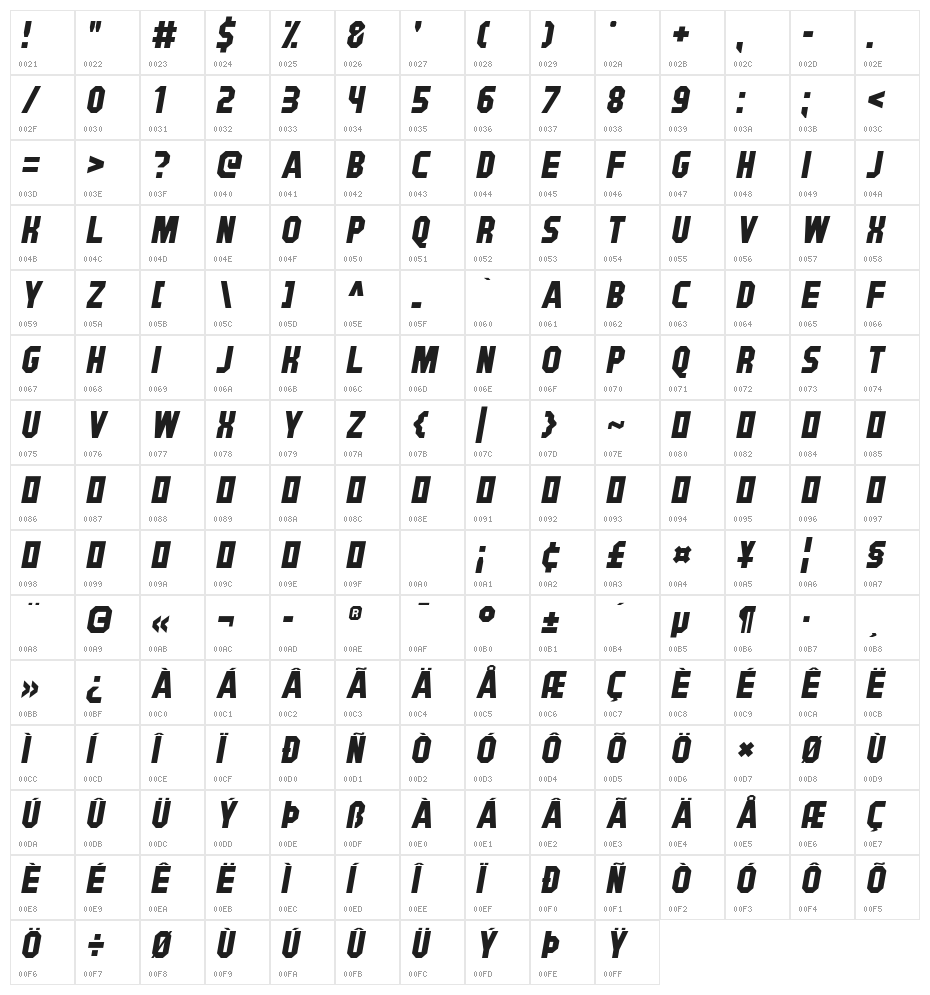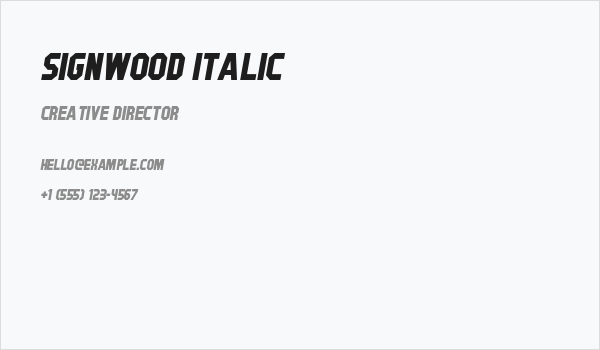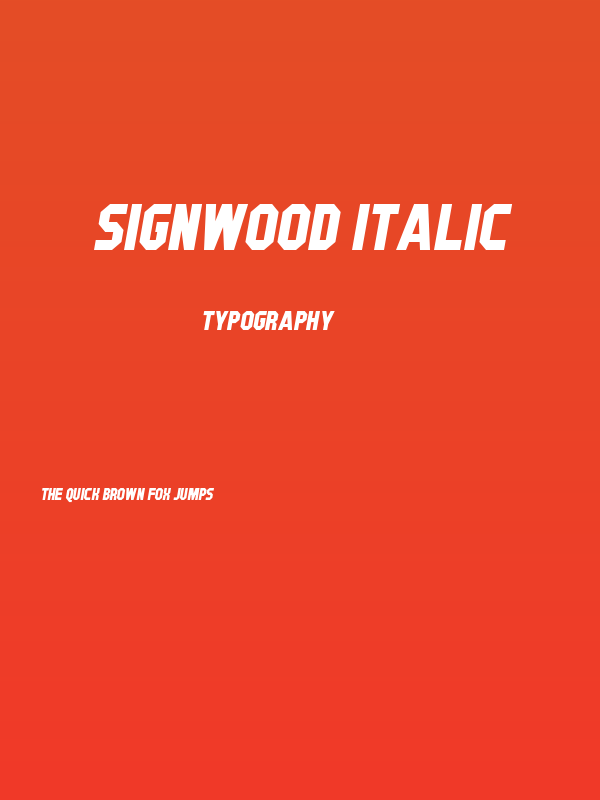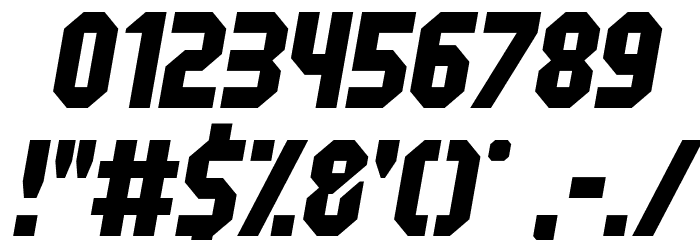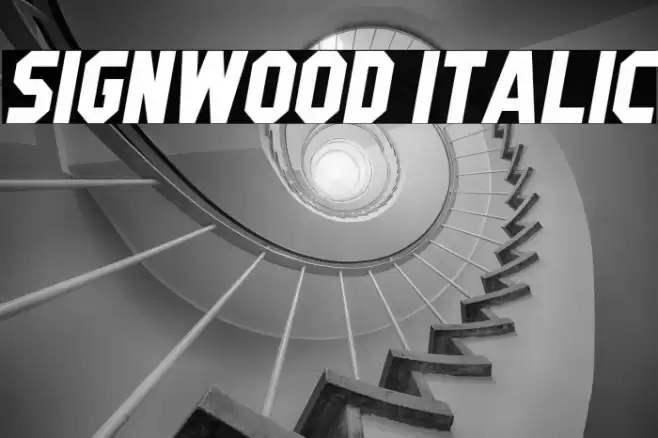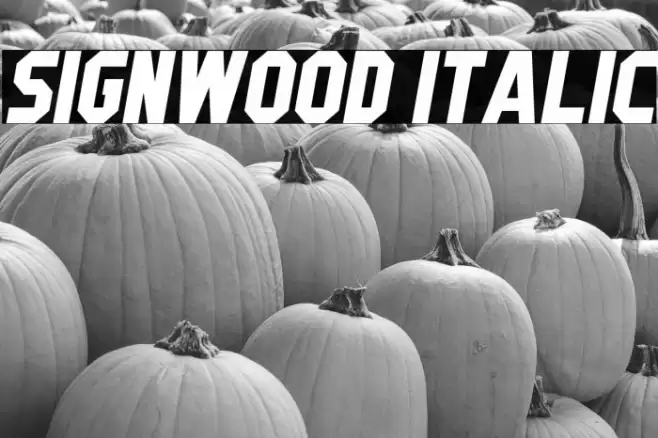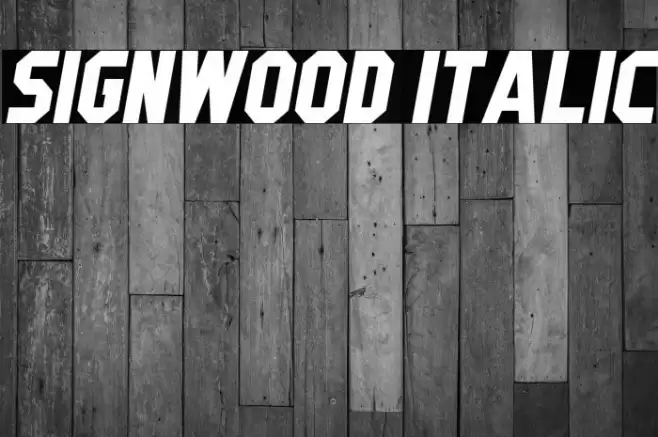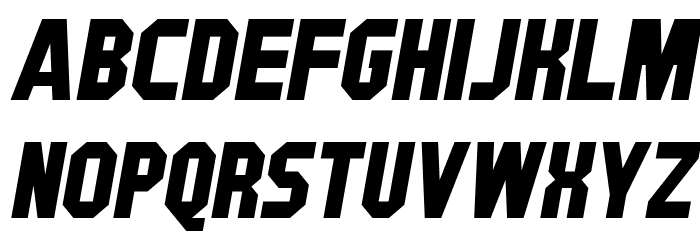
Signwood Italic Font
Signwood Italic Description
This font features a bold and dynamic style with a strong italic slant, giving it a sense of motion and energy. The characters are robust and angular, with sharp edges and a geometric structure that conveys a modern and assertive appearance. The uppercase and lowercase letters maintain a consistent style, providing a cohesive look across the alphabet. The numerals and special characters are designed to match the boldness and angularity of the letters, ensuring uniformity throughout. This font's striking presence makes it ideal for attention-grabbing designs.
| Proposed Projects | Ideal for sports branding, dynamic posters, modern logos, and impactful headlines. |